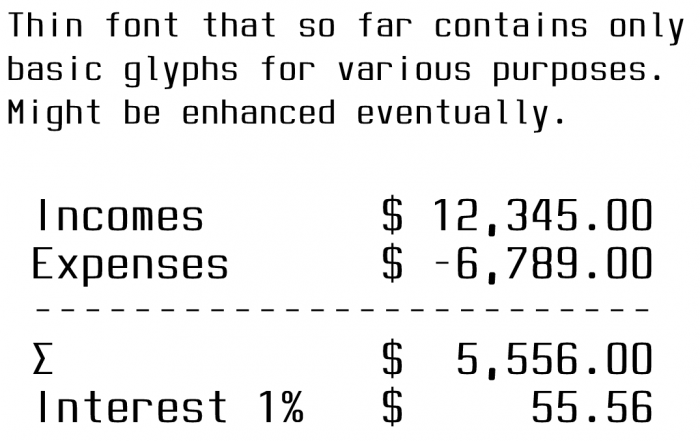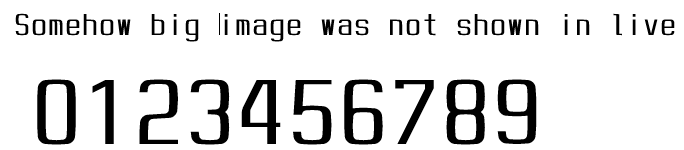
@Peter (Petruuccio) - This is a very nice clean design, and highly legible.  Congratulations!
I'm with @Goatmeal. My only "but" are the too thick W and w and a bit compressed @. Good luck at the Comp.
@elmoyenique thank you for your words. I will try to tweak the dense characters somehow, but I guess to make them pretty, it would need to get rid of the fixed width boundaries.